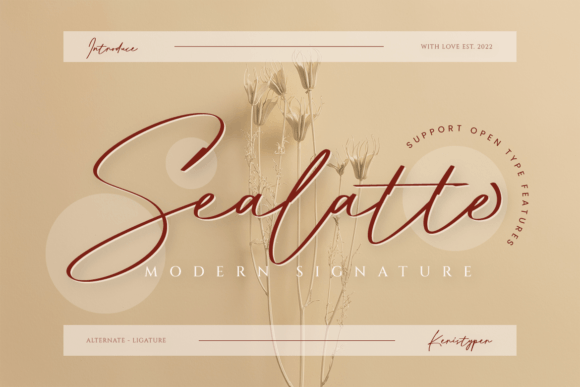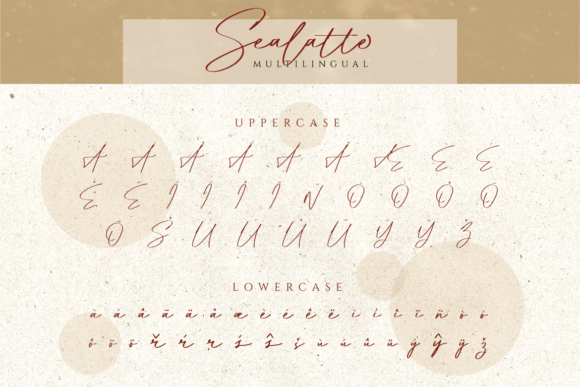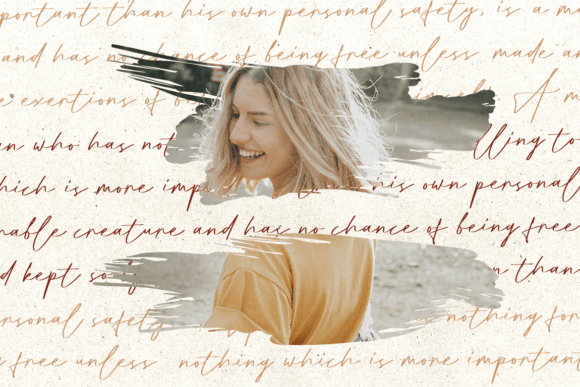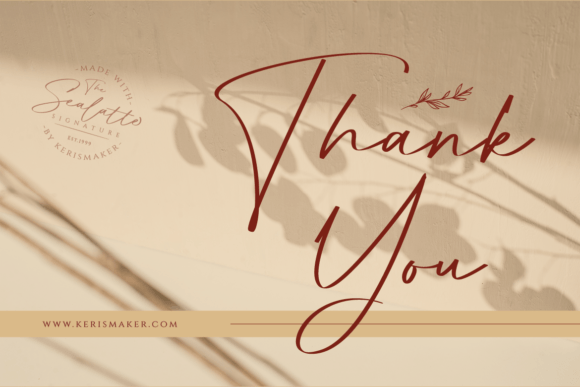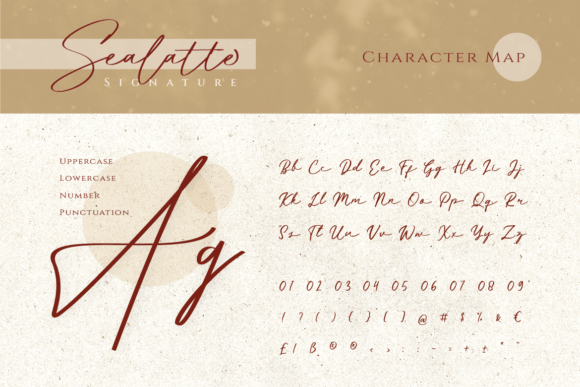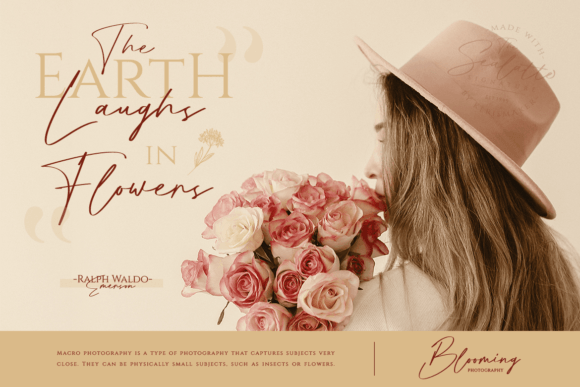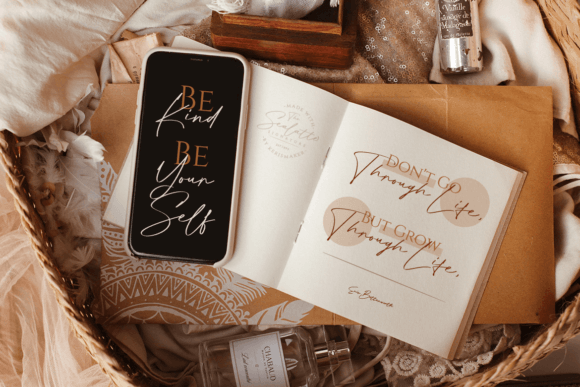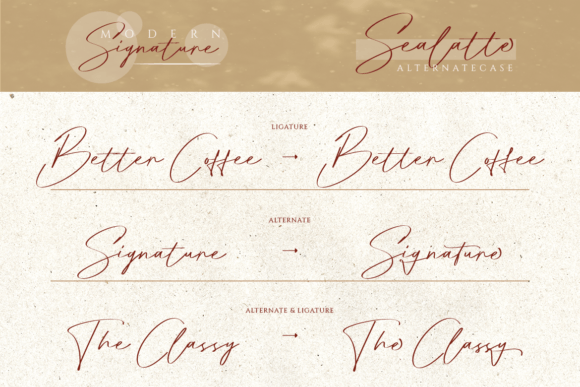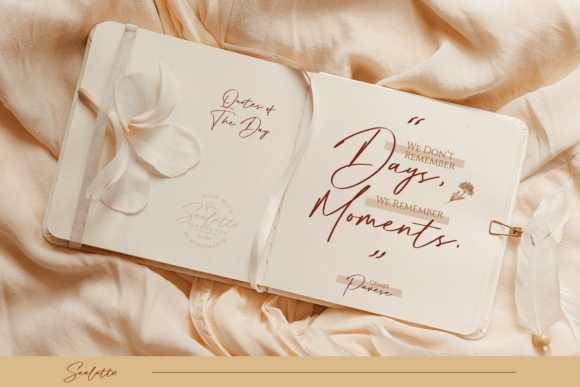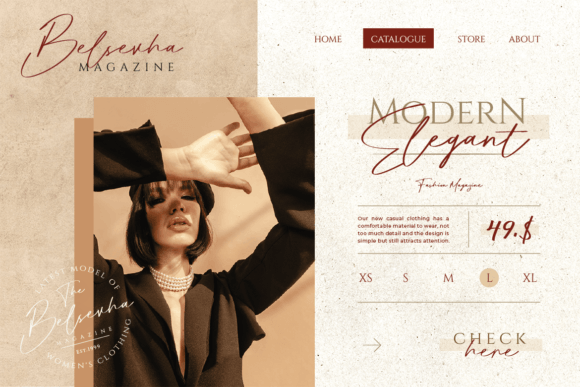
Sealatte Font
A Modern and Elegant Signature Typeface
Sealatte Signature is a captivating handwritten font designed to bring a refined, stylish look to any project. Its smooth lines and modern aesthetic create a fresh yet timeless feel. Whether you’re designing for personal projects or professional branding, Sealatte adds an elegant touch that makes your work stand out.
This font is the perfect choice when you want your typography to feel sophisticated and unique.
Perfect for Logos, Titles, and Branding
Sealatte shines in logo design, where its signature style helps brands feel premium and memorable. Use it for business logos, personal branding, or boutique labels to make a lasting impression.
The clean, fluid letterforms also work beautifully for movie titles, book covers, and editorial designs. Whether your project calls for a modern feel or something more classic, Sealatte adapts seamlessly.
Its distinctive style sets the right tone for professional presentations, event invitations, and product packaging. Every detail feels thoughtful and polished.
Ideal for Social Media and Digital Content
Sealatte is a great fit for social media graphics, website headers, and email newsletters. The graceful curves add a touch of class to quotes, announcements, or promotional banners.
Pair Sealatte with a clean sans-serif or serif font to create balanced, visually engaging layouts. Use the script for feature text and keep supporting content minimal to let the signature style shine.
Even in small sizes, Sealatte stays readable and maintains its unique charm.
Easy to Customize and Use
Sealatte is PUA encoded, which means you can access all its glyphs, ligatures, and swashes with ease. This gives you the flexibility to customize your designs and create unique letter combinations that fit your creative vision.
Alternate characters and stylish swashes help you build compositions that feel personal and refined. Whether you want a bold statement or subtle detail, Sealatte delivers.
Tips for Elegant Designs
To help Sealatte look its best, use neutral or soft backgrounds. Shades like ivory, light gray, or blush pink make the letterforms stand out without overpowering the design.
Leave plenty of white space around the text to highlight the graceful curves and keep your layouts clean.
If you’re designing for luxury brands or premium products, consider combining Sealatte with elegant icons or subtle patterns to reinforce the upscale feel.
This font works beautifully in designs that need a touch of sophistication and confidence.